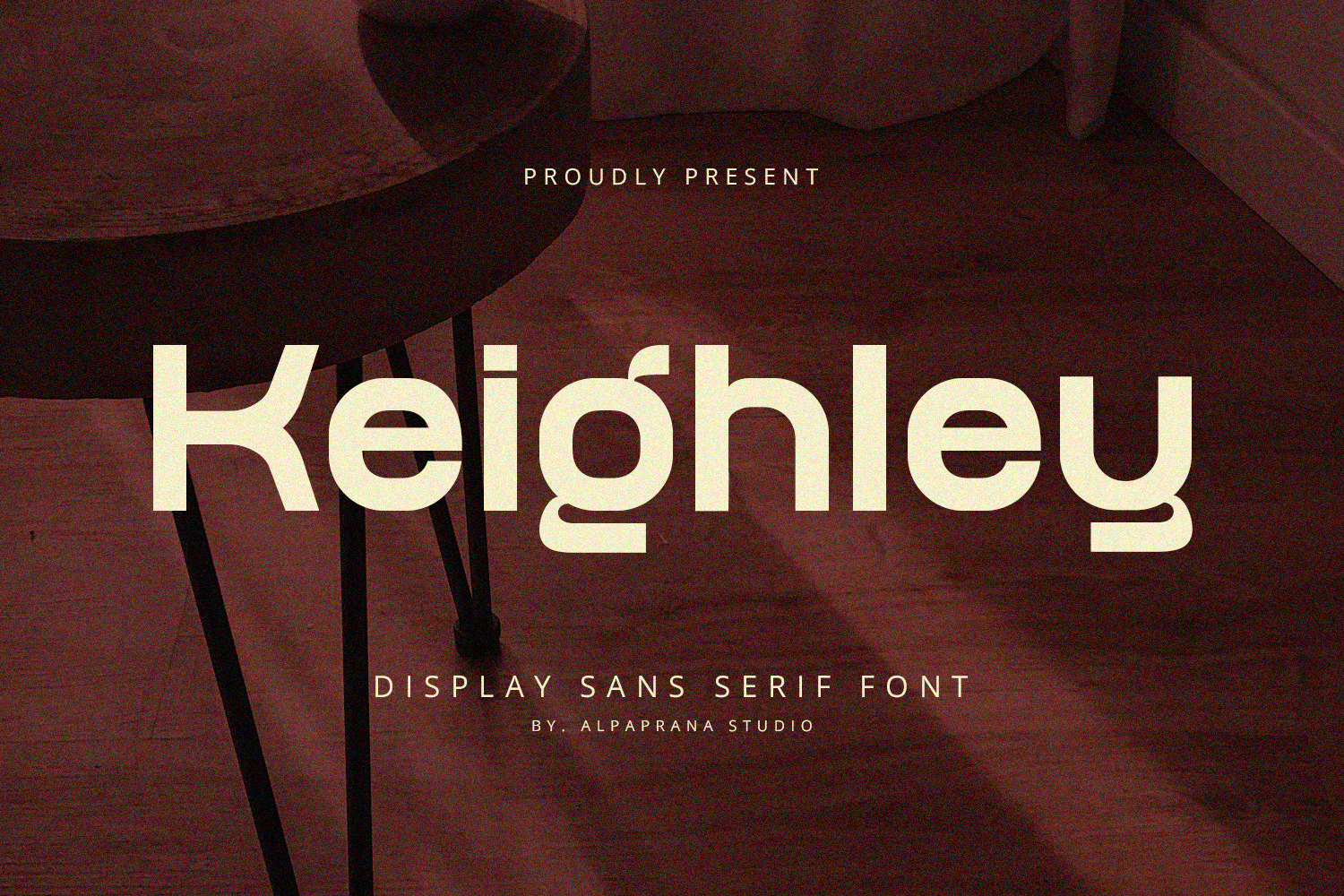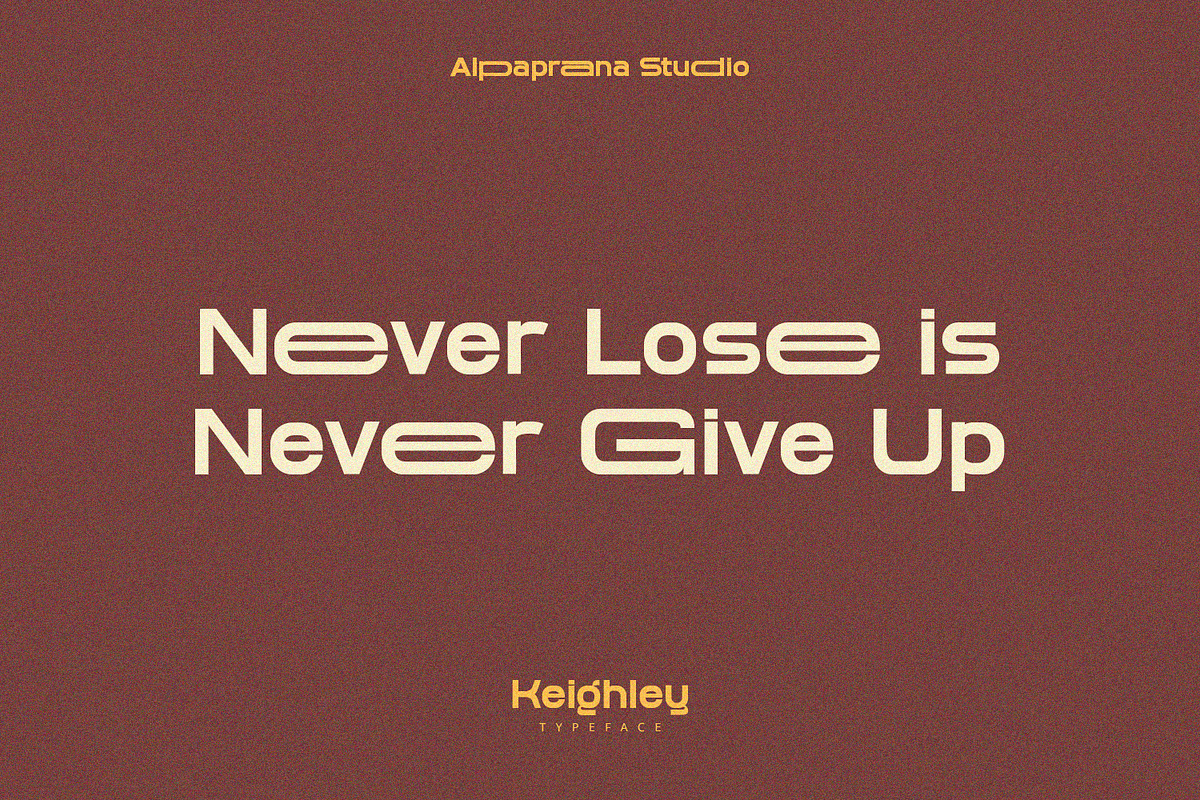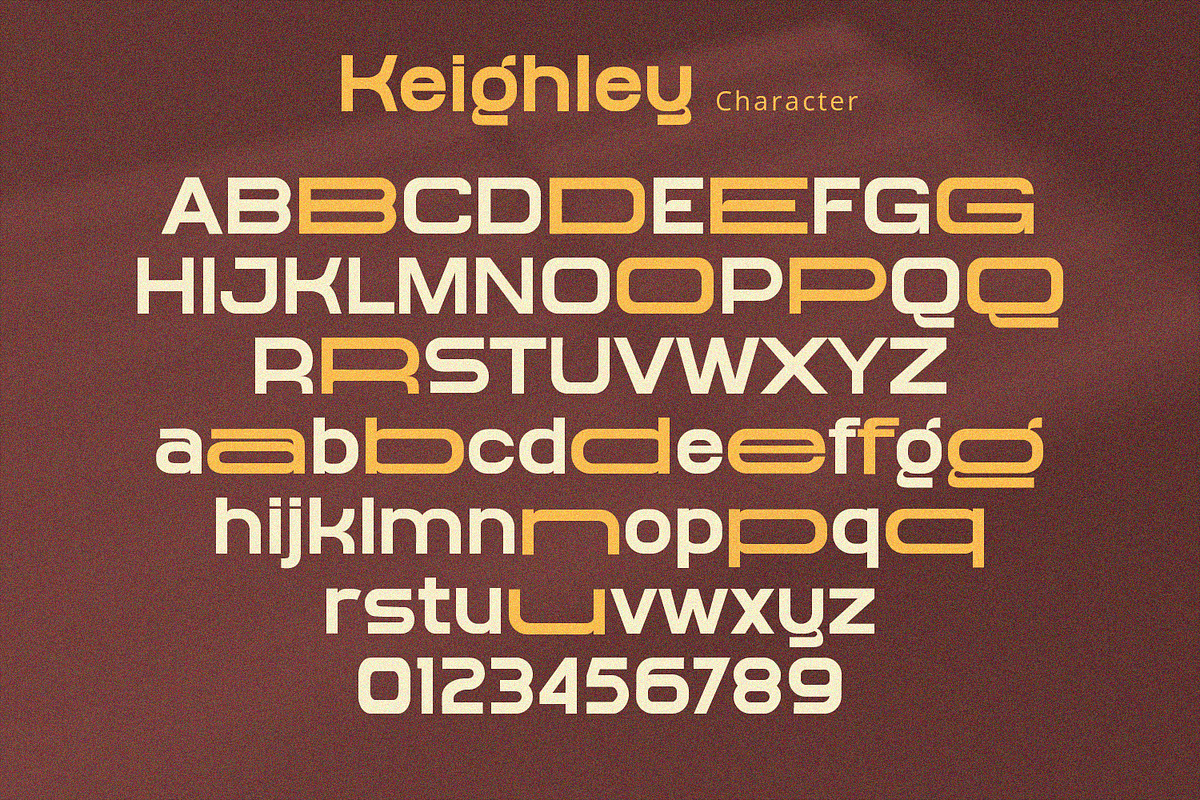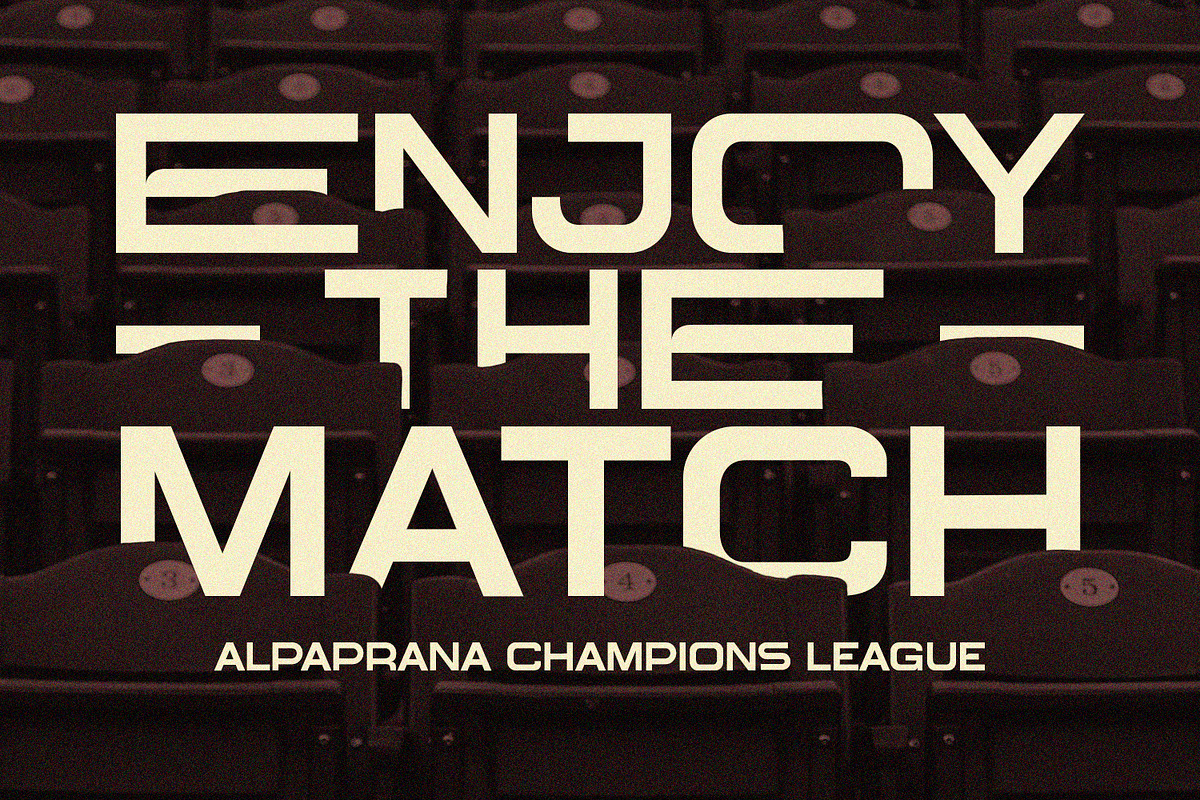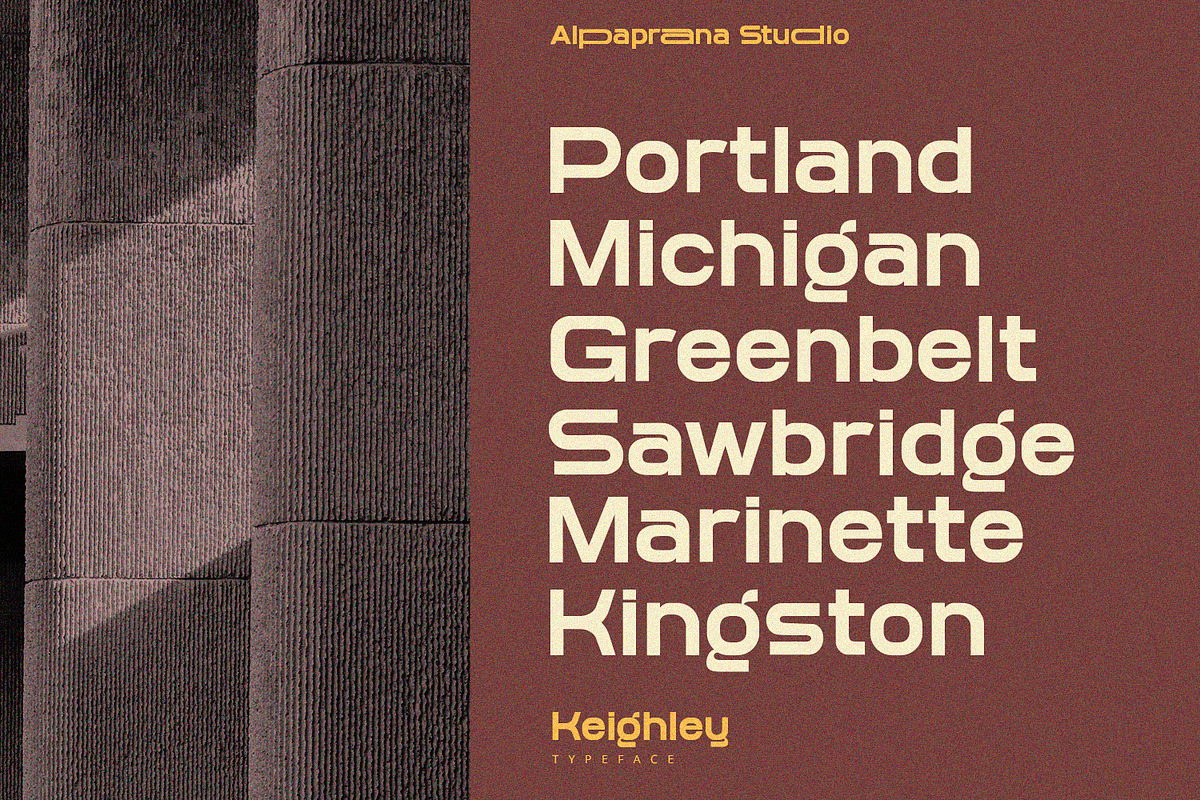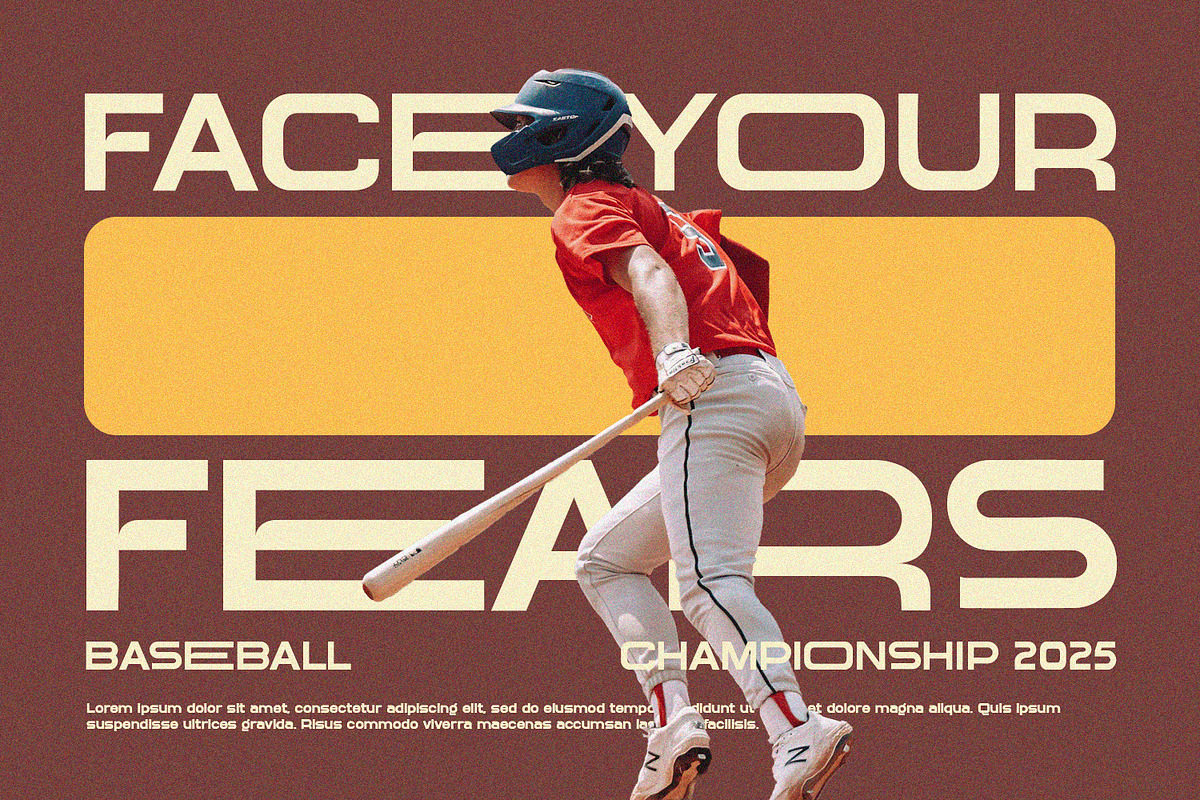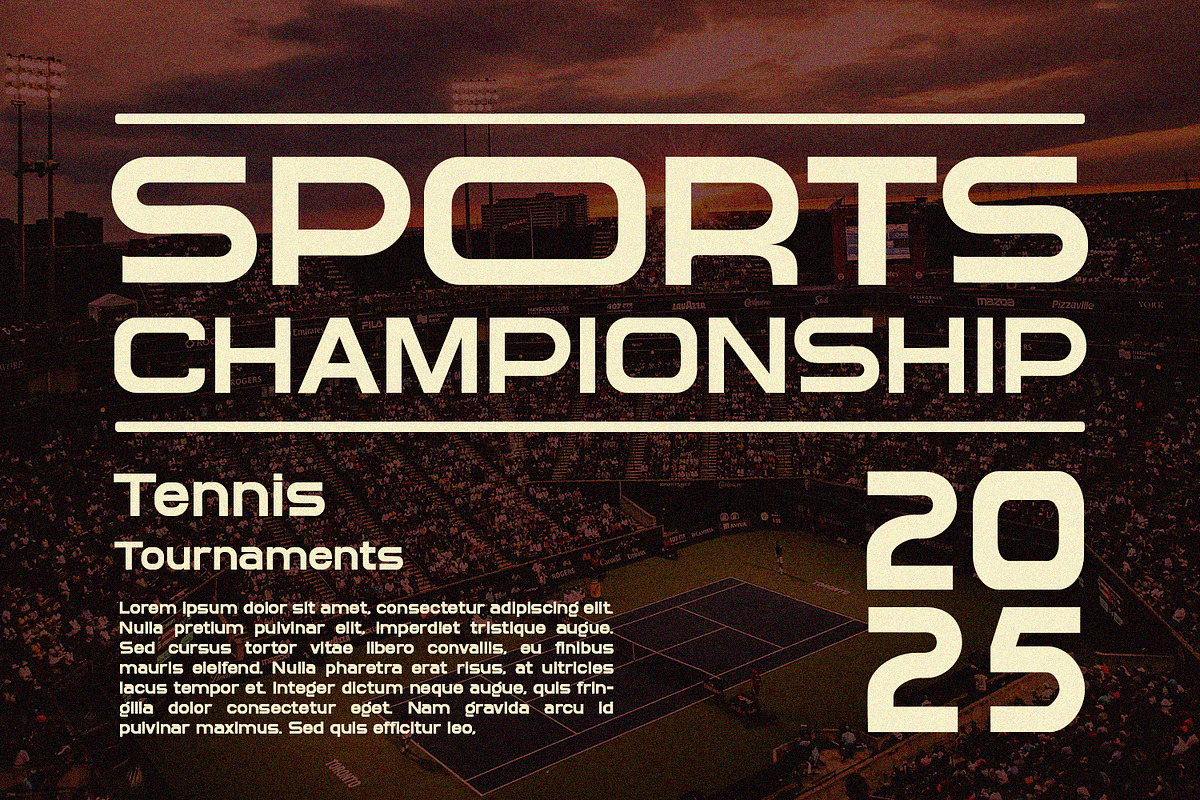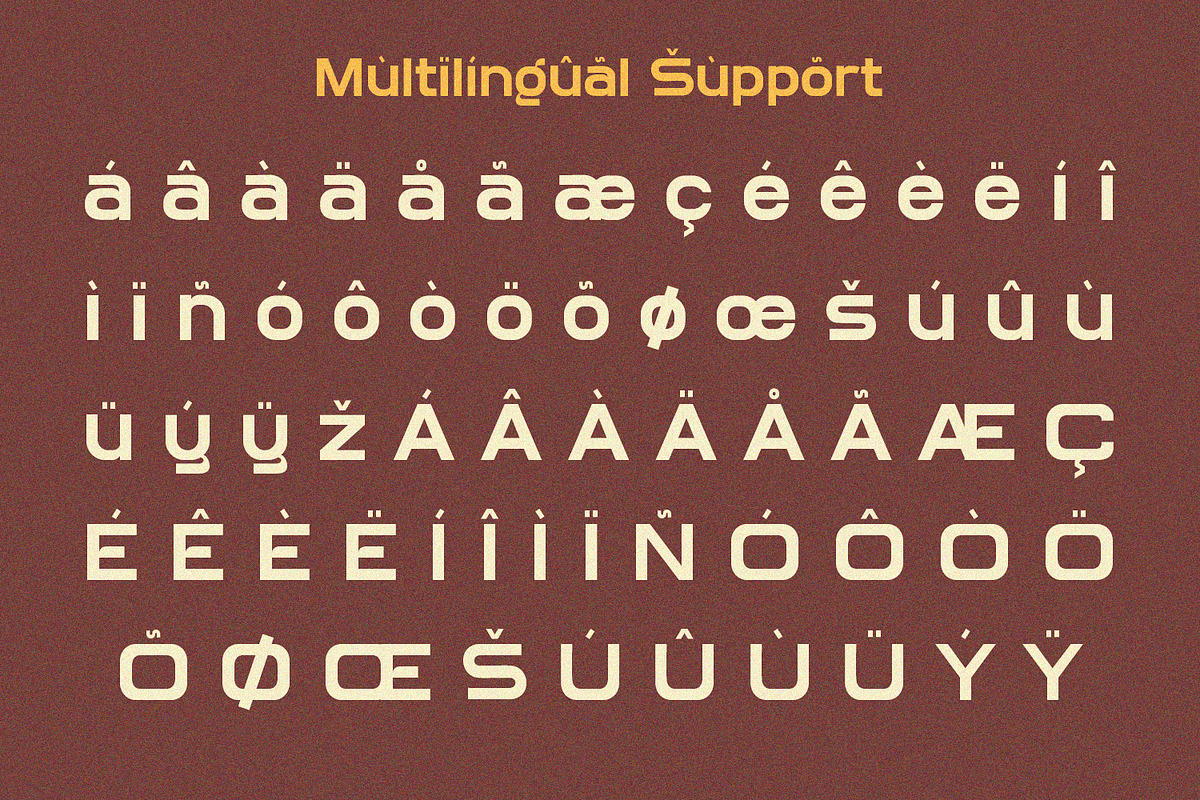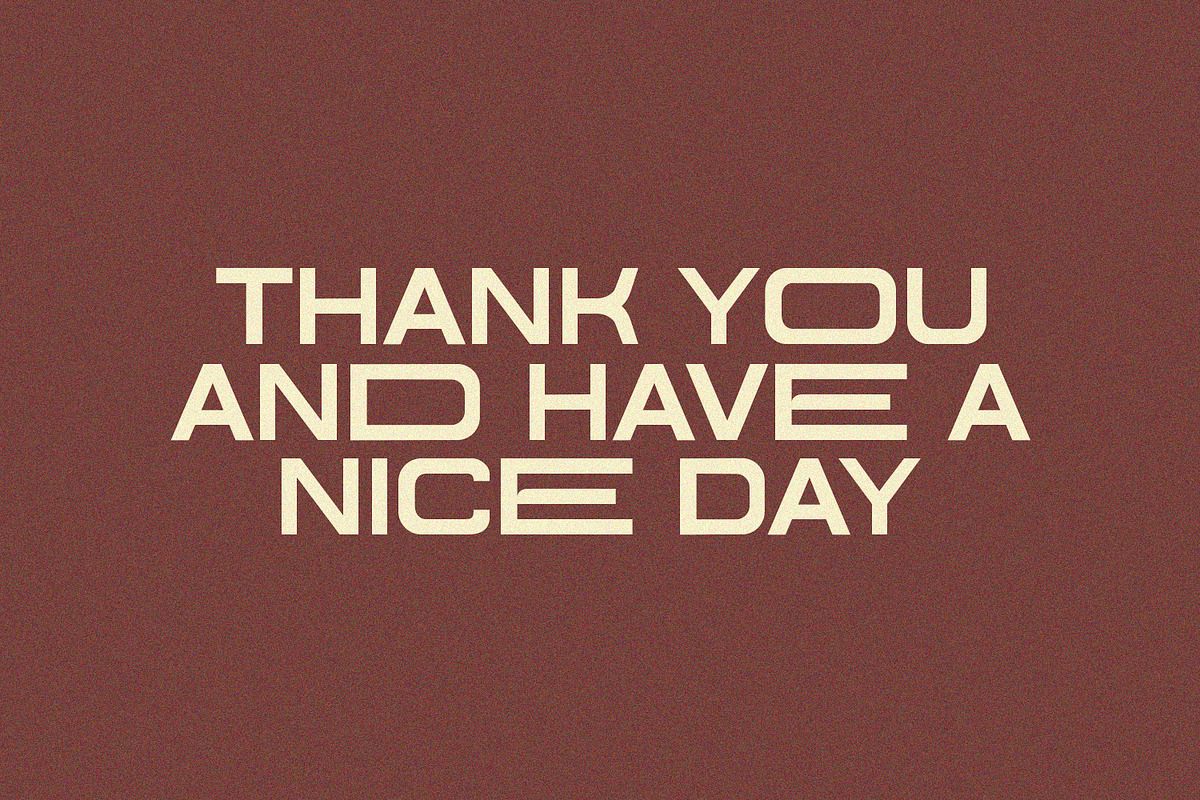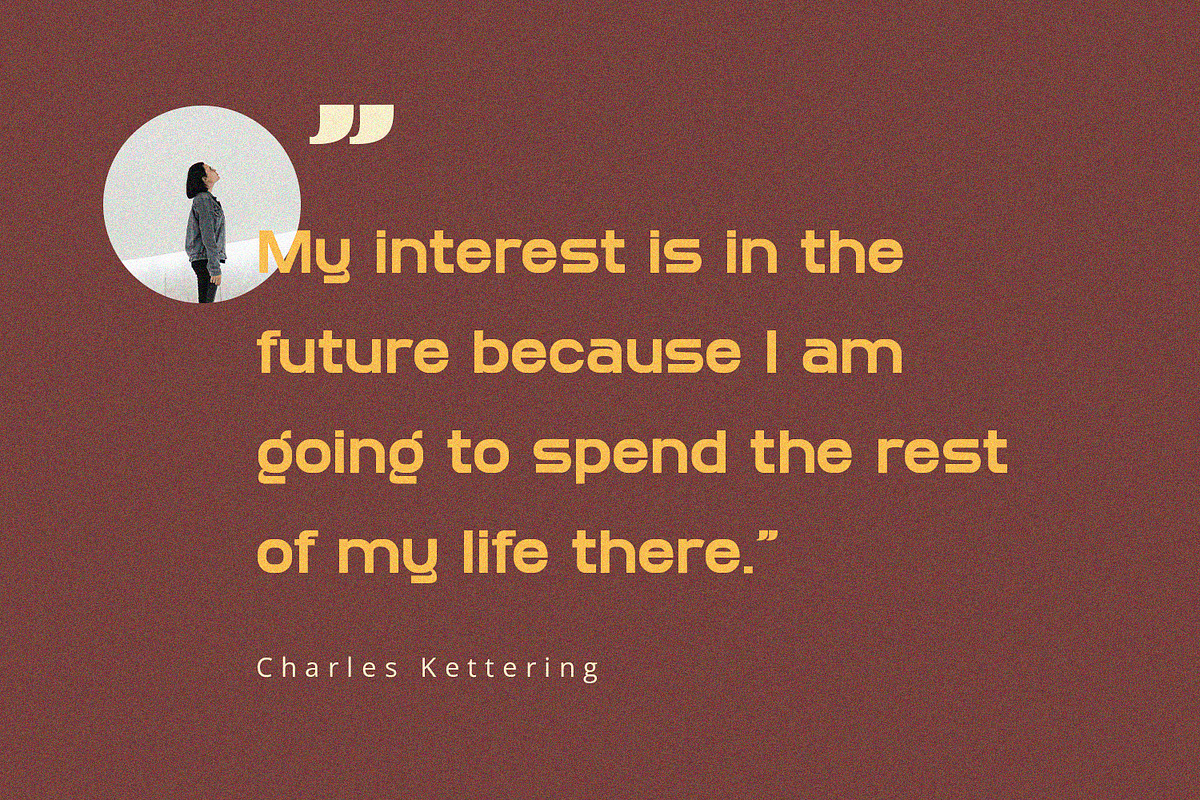
Keighley - Sans Serif Font
Keighley is display sans serif font with elegant and modern feels. It will be perfectly used for Branding, Logo Design, Lettering, Logotype, Clothing, Poster, magazine, packaging, posters, shopping bags, t-shirts, book covers, photography, special events and other design project.